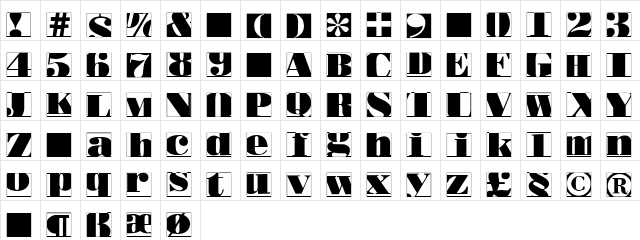
BodoblackSquaresInvers Regular
Design Context for BodoblackSquaresInvers Typeface
BodoblackSquaresInvers is a composed and adaptable typeface that performs quietly and consistently across a wide range of design contexts.